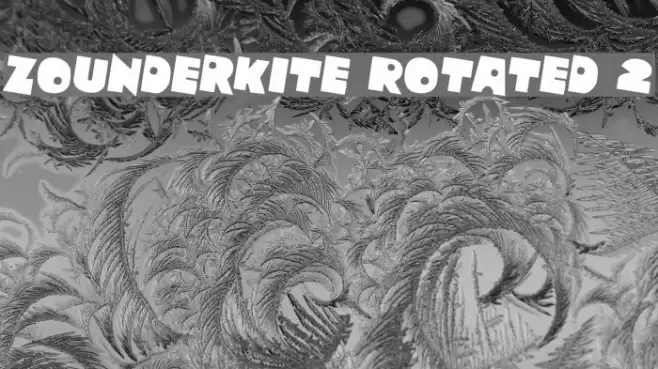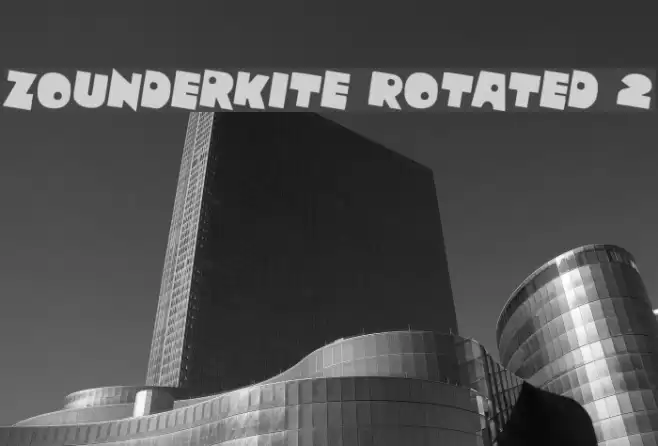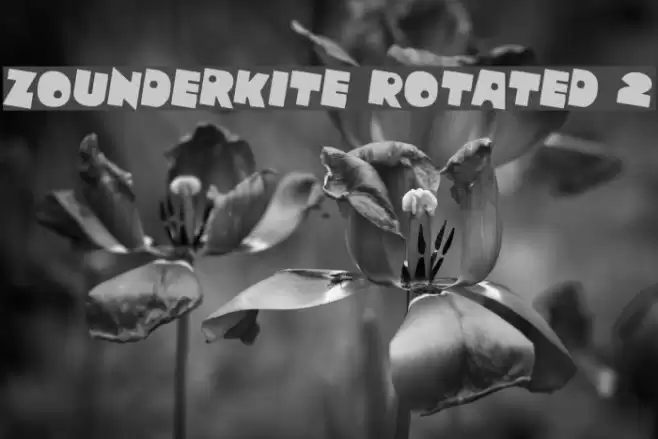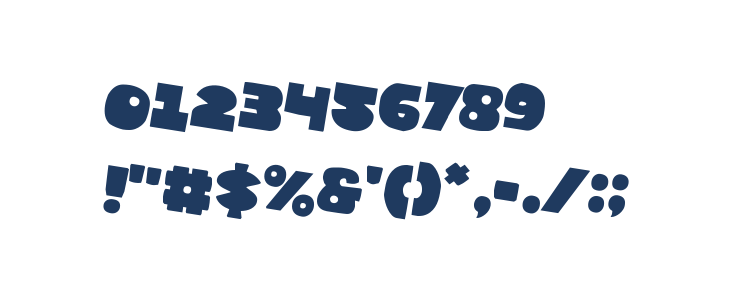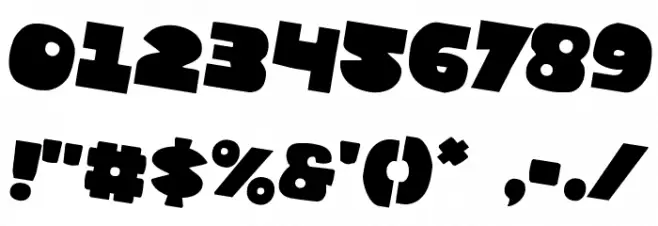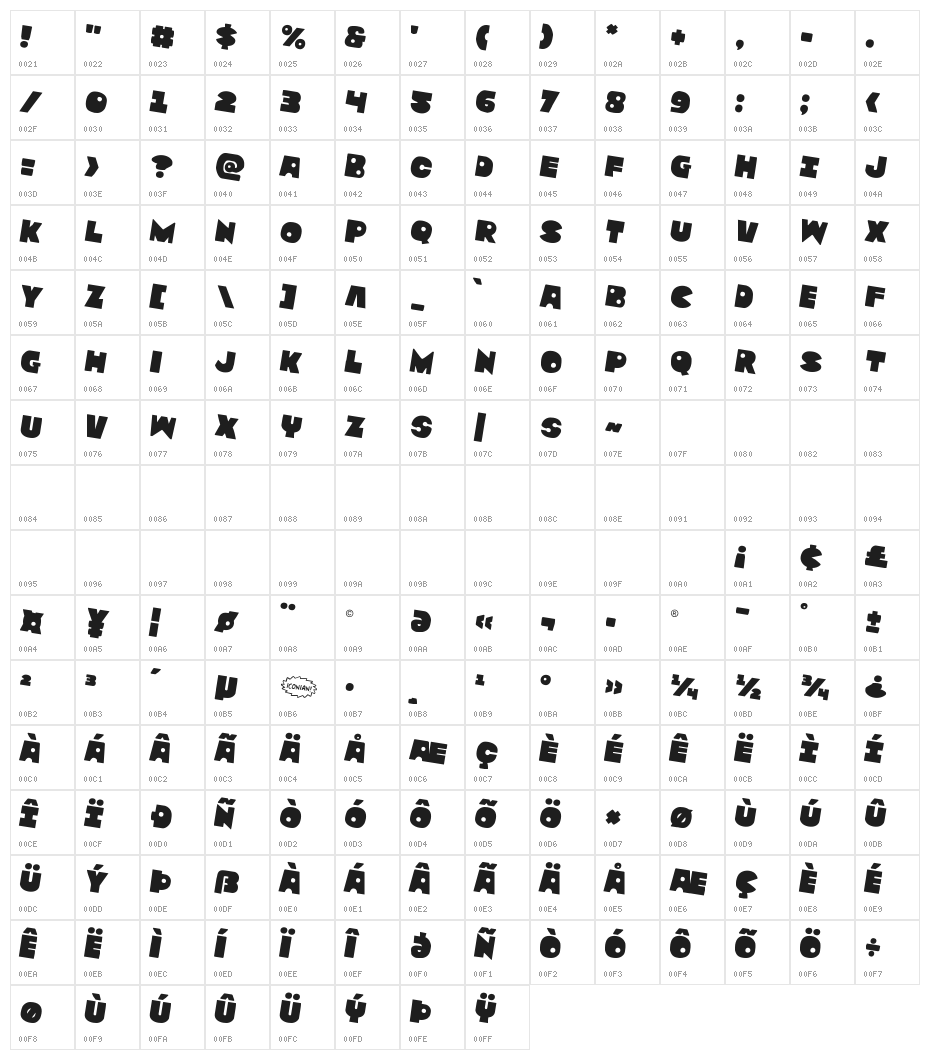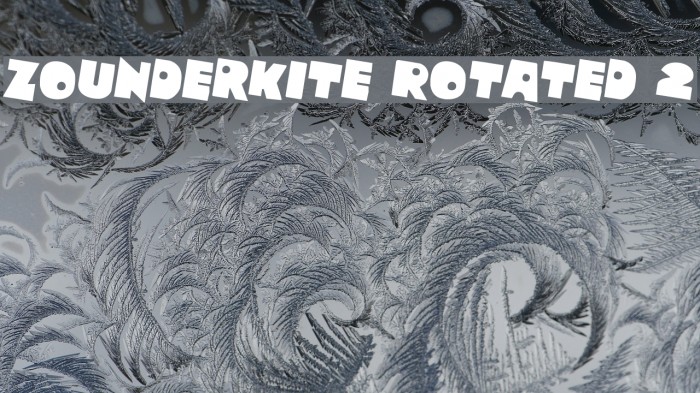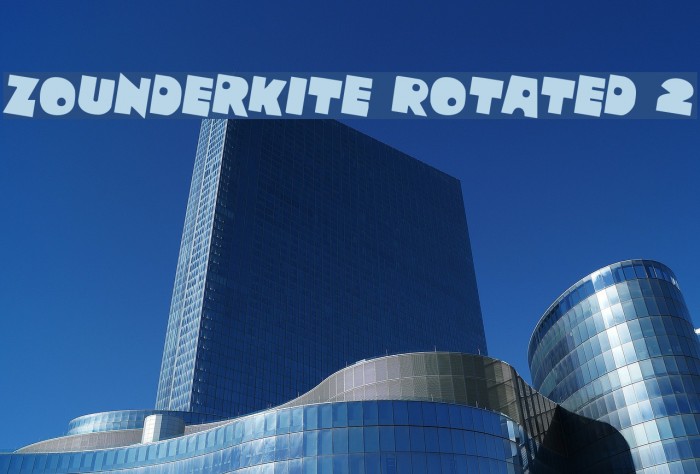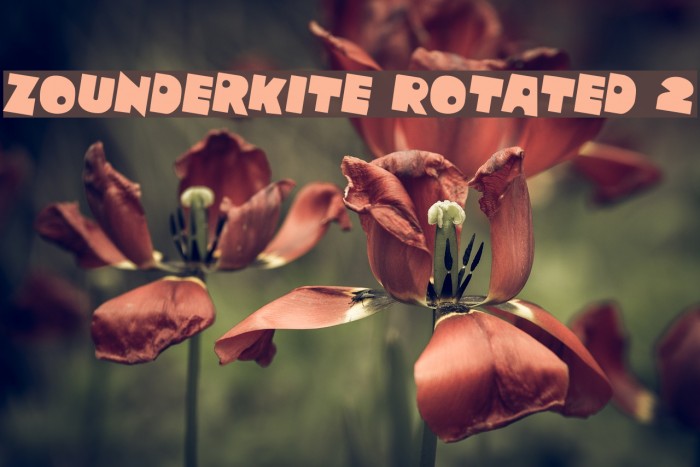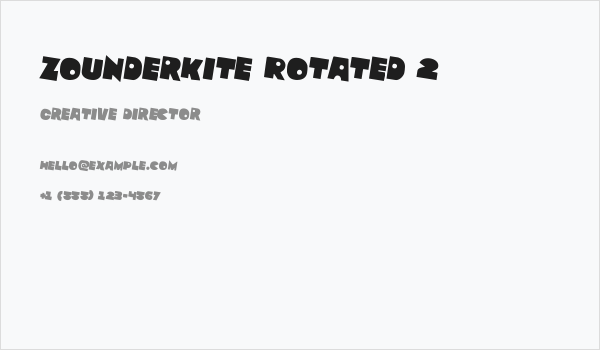
Zounderkite Rotated 2 Font
Zounderkite Rotated 2 Description
This font features a bold and playful design with exaggerated, rounded forms and a strong presence. The characters are heavily weighted, with thick strokes that create a sense of fun and whimsy. The letters are slightly tilted, adding a dynamic and energetic feel. The overall style is cartoonish and informal, making it ideal for projects that require a lively and engaging typeface. The numbers and special characters maintain the same playful aesthetic, ensuring consistency across all text elements.
A bold, playful font with rounded, exaggerated forms and a dynamic tilt from Cartoon fonts.
- Proposed Projects: Ideal for children's books, comic strips, playful branding, and event posters.
- Overall Style: Playful, Cartoonish